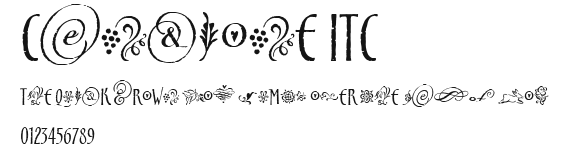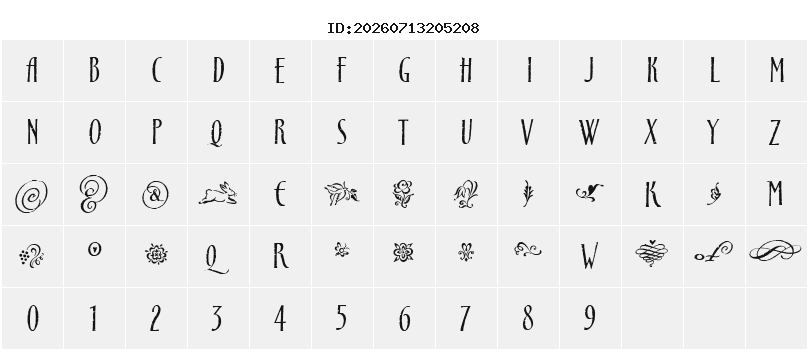
Cancione ITC Preview
• Font Name: Cancione ITC
• Full Font Name: Cancione ITC
About Cancione ITC.ttf
Cancione ITC.ttf is a modern, elegant sans-serif font designed for ultimate readability and visual harmony. Perfect for branding, headlines, web design, and print materials.